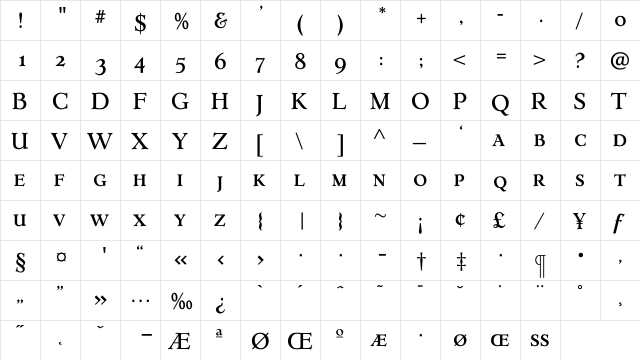
ErasmusMediumExpert Regular
Design Context for ErasmusMediumExpert Typeface
ErasmusMediumExpert takes a measured approach to typography — its balanced proportions and neutral character make it a reliable workhorse for both digital and print work.
Pro Tip: Use ErasmusMediumExpert in both headline and body roles to test its range before committing to a single application.